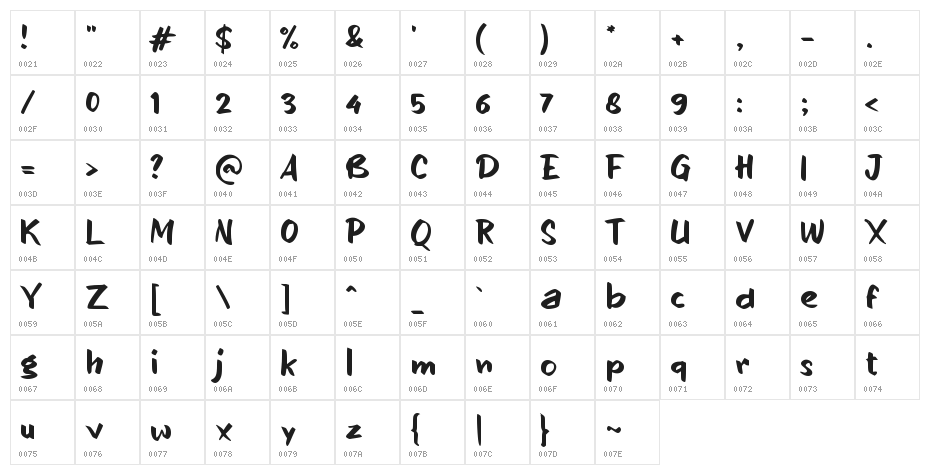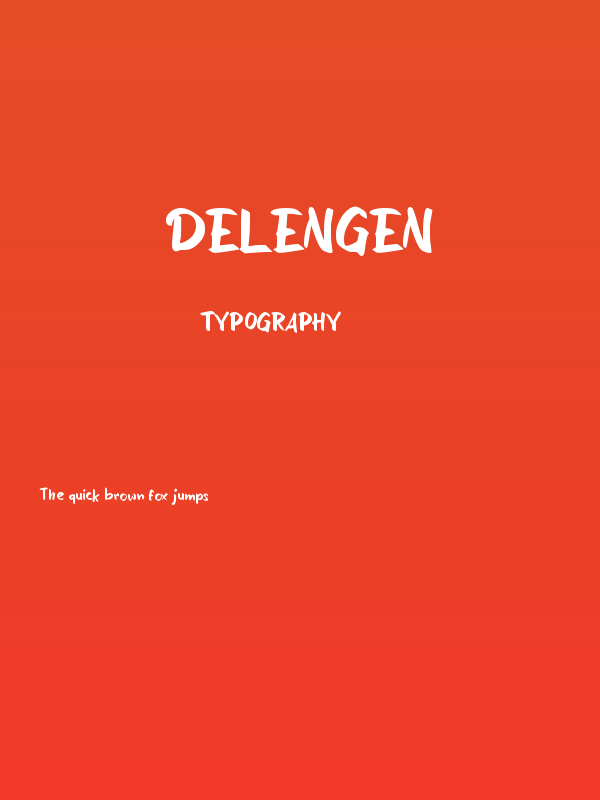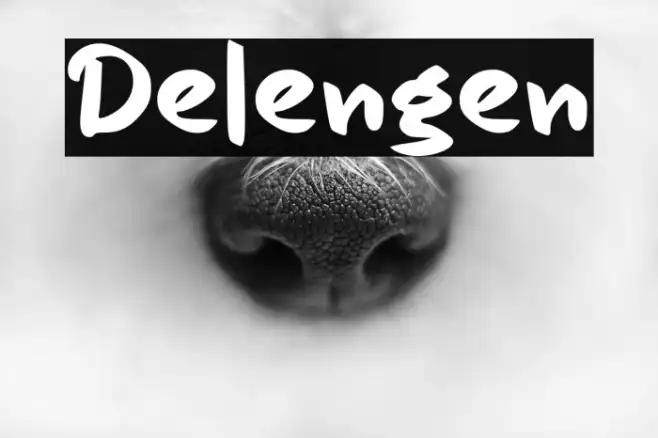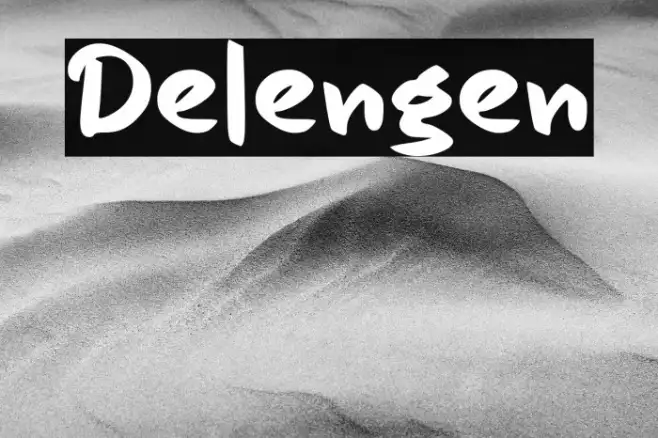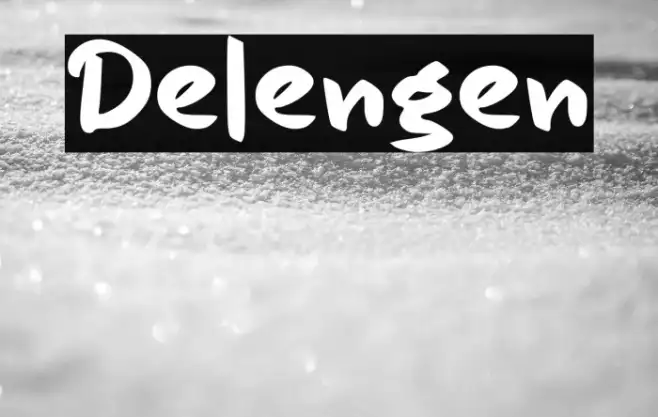
Delengen Font
Delengen Description
This font features a bold and dynamic handwritten style, characterized by its playful and energetic appearance. The letters have a slightly irregular form, giving them a casual and informal feel. The strokes are thick and rounded, with a consistent weight throughout, contributing to its boldness. The characters are closely spaced, creating a compact look that enhances its expressive nature. This font is suitable for projects that require a personal touch or a lively, informal vibe. Its unique style makes it ideal for creative designs, such as posters, invitations, and social media graphics.
| Proposed Projects | Ideal for posters, invitations, social media graphics, and creative designs. |